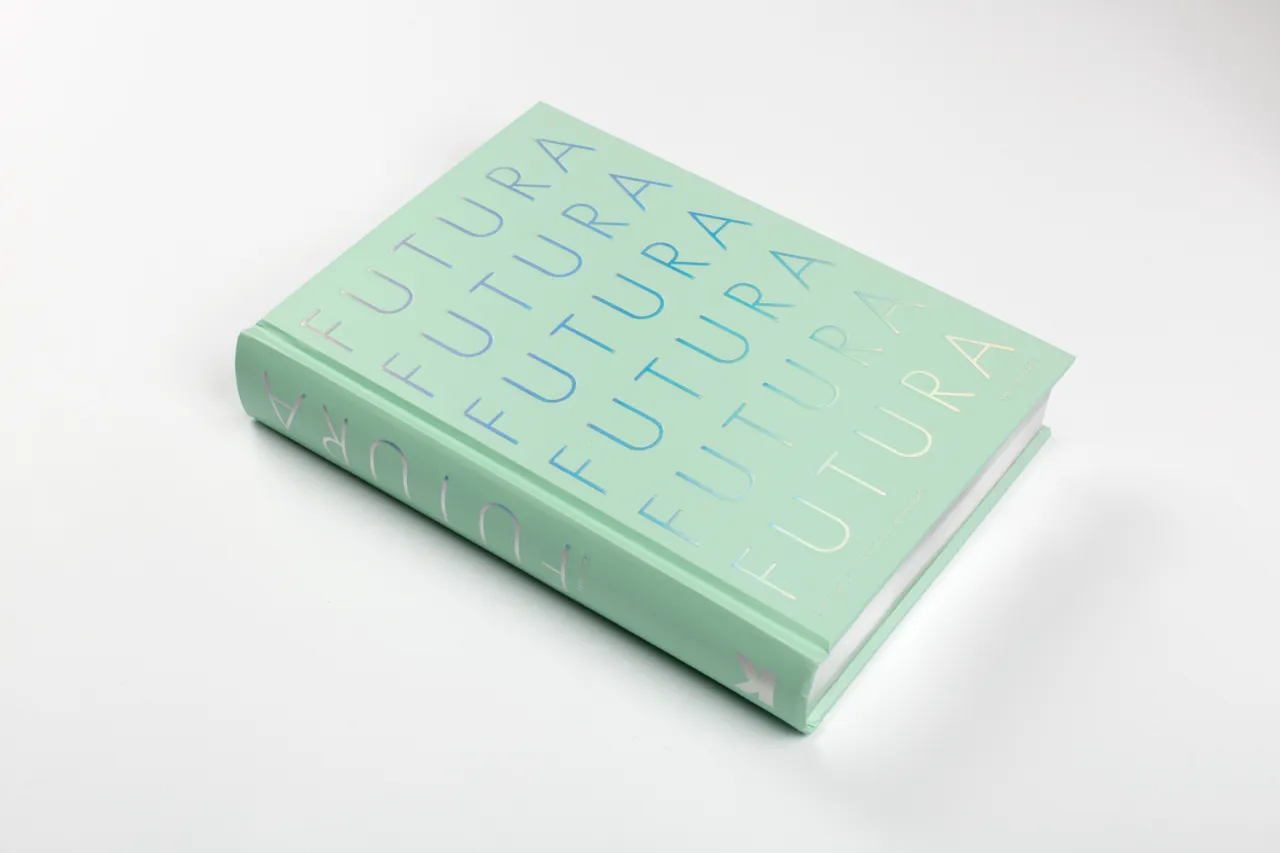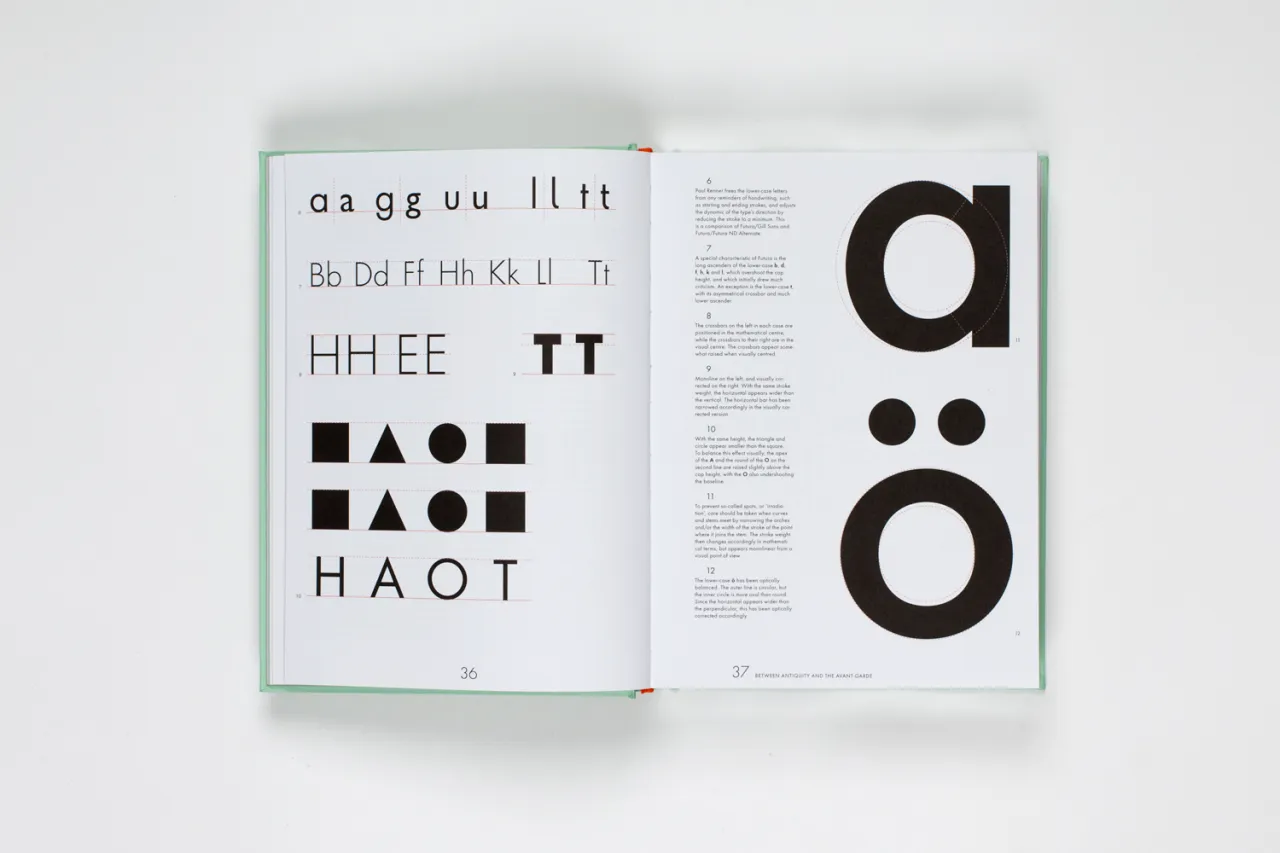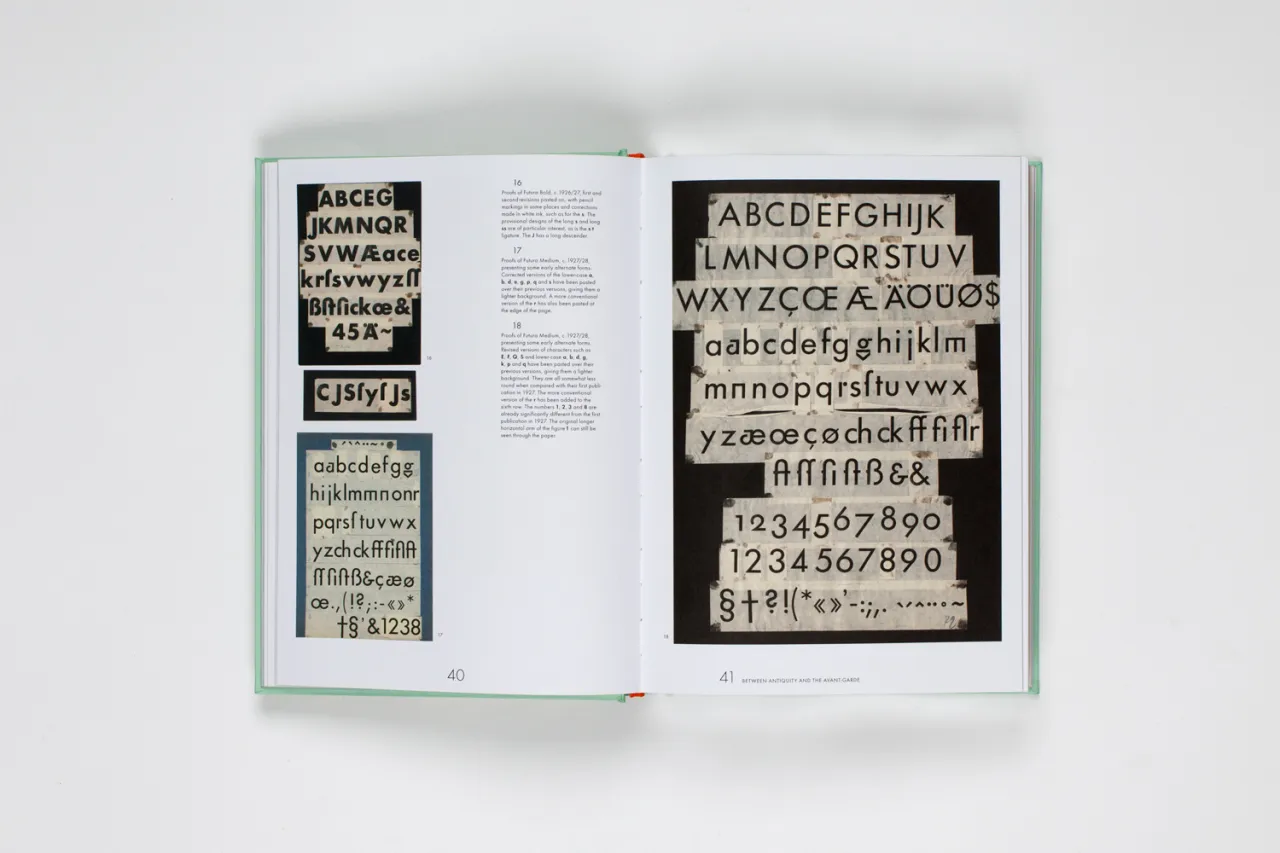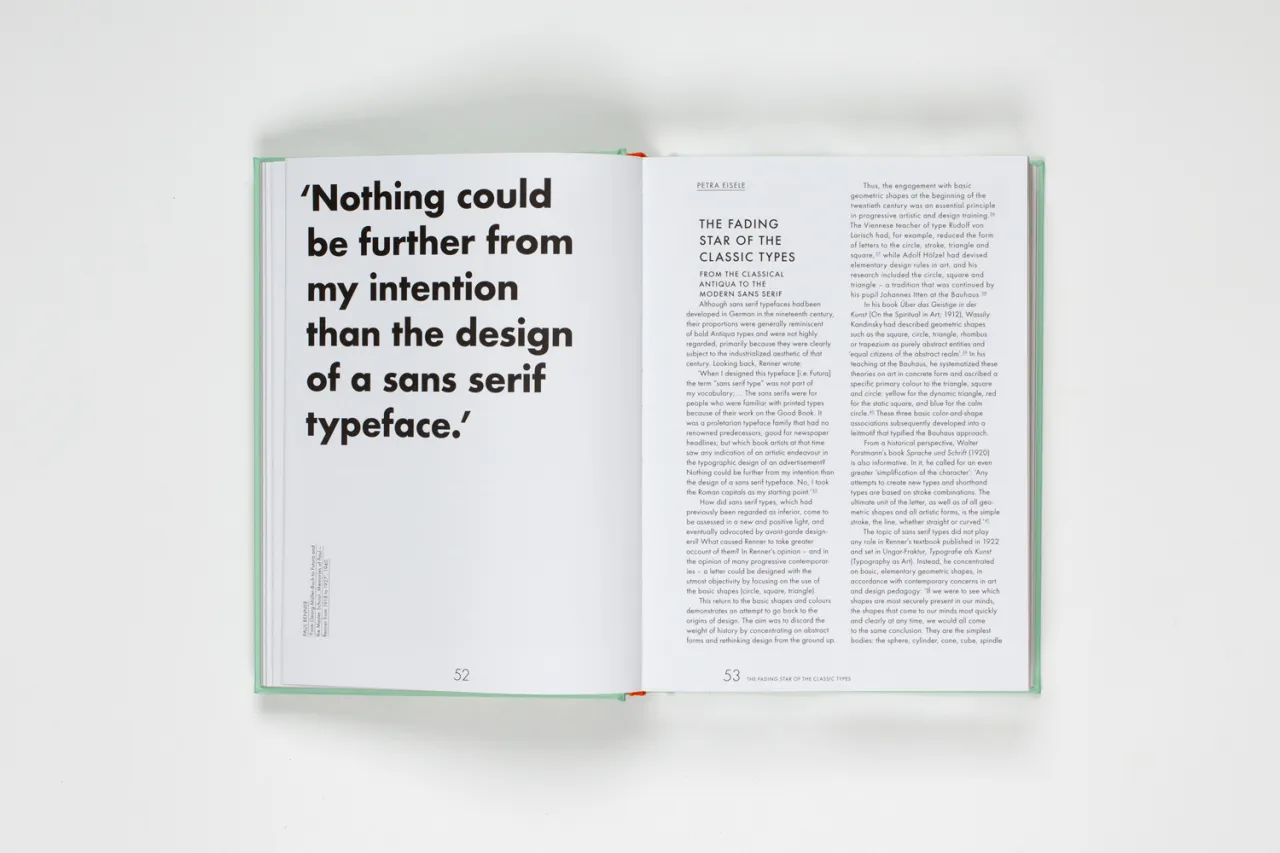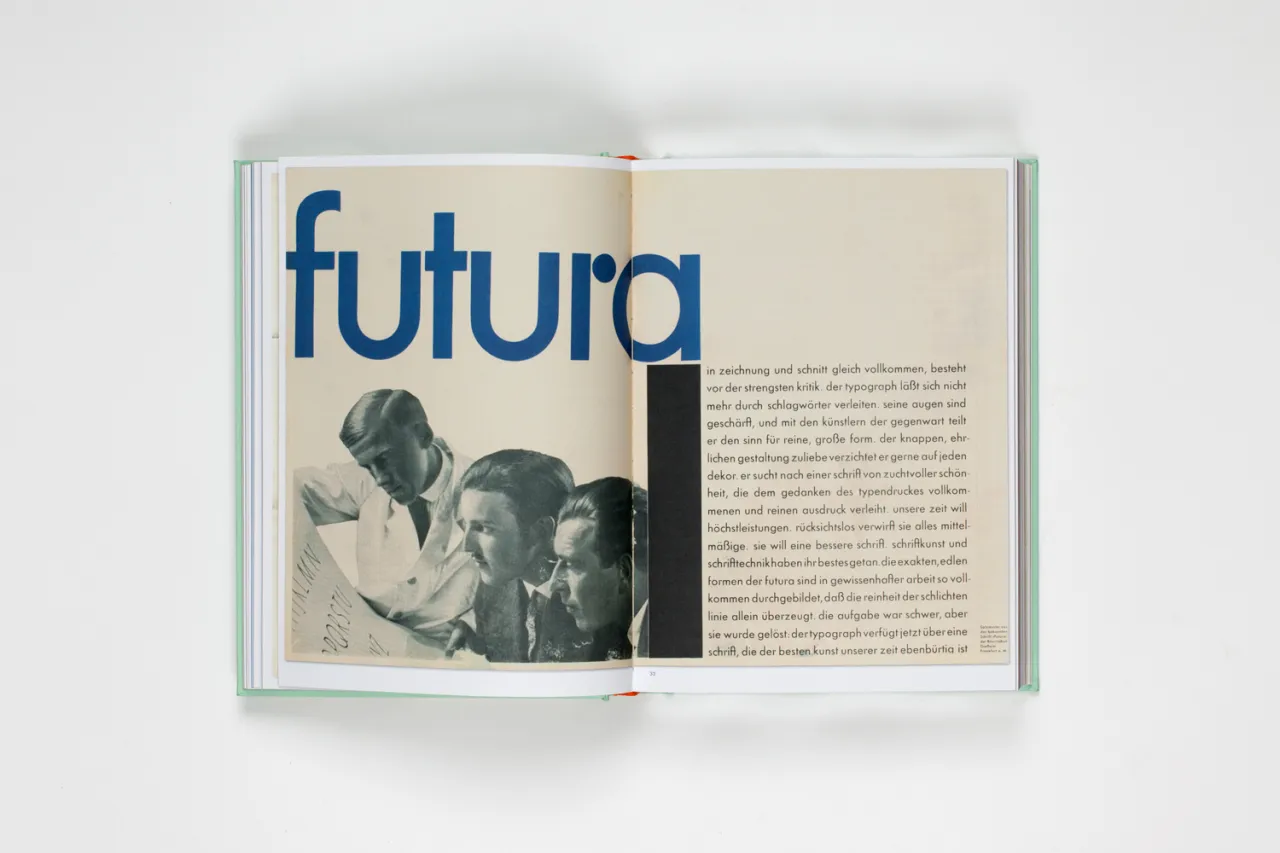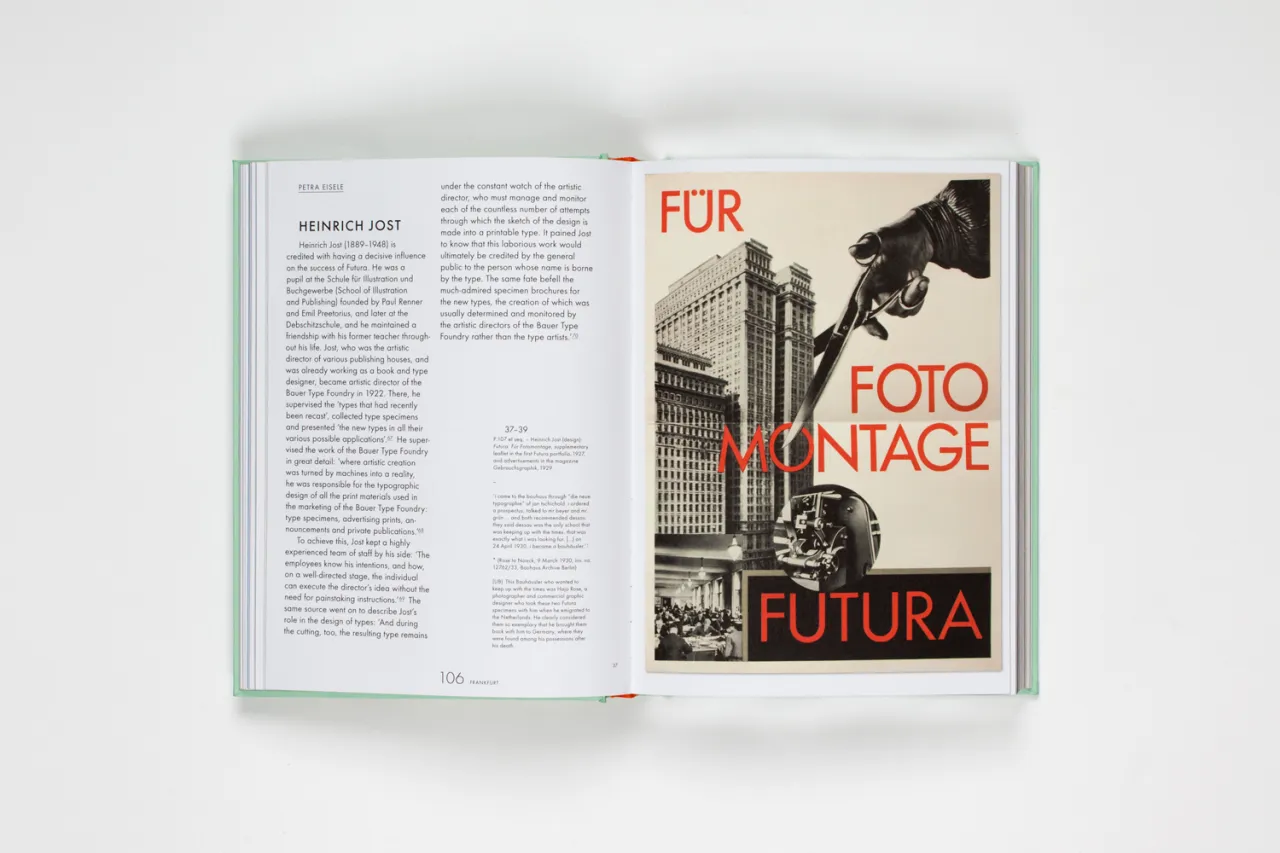
Futura: The Typeface is a stunning showcase of one of the most popular typefaces
Celebrating its 90th anniversary this year, the life and times of Futura is a fascinating one. Charting its Bauhaus origins to its use as the first font on the moon in 1969, Futura: The Typeface is a new book that tells the story of how the typeface went from representing radicalism in design to dependability.
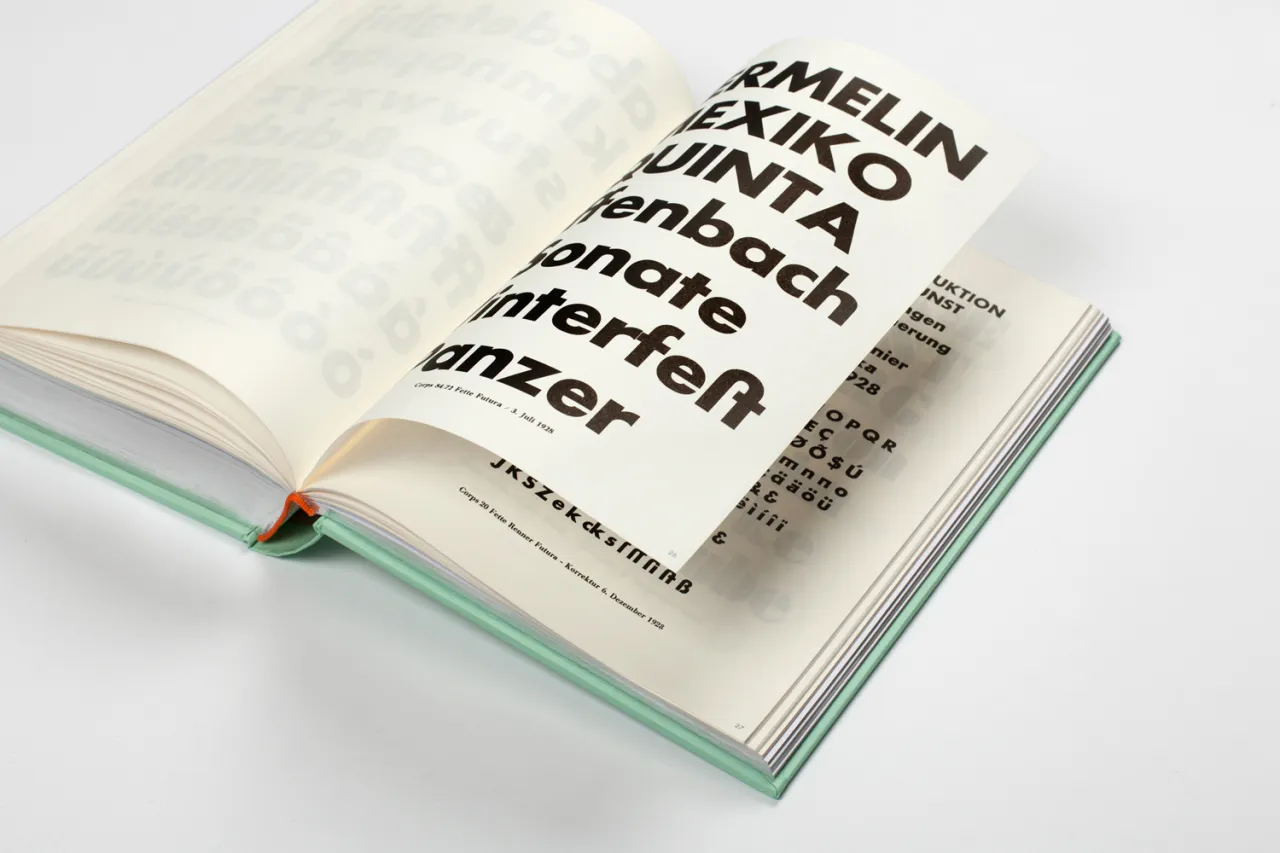
It celebrates and rediscovers this timeless font through archive illustrations and informative essays, revealing fascinating facts like... did you know Futura was Stanley Kubrick's favourite typeface? And that it was used on the film poster for 2001: A Space Odyssey? Or even that Vanity Fair used Futura as an experiment for five issues in 1929, defining their progressive design style, and pin-pointing Futura as "a face representing the New Typography of the European avant-garde"?
Expect insight and observations from renowned design writers such as Steven Heller, Erik Spiekermann and Christopher Burke. Edited by Petra Eisele, Professor of Design History and Design Theory at the University of Mainz; Dr Annette Ludwig, Director of the Gutenberg Museum and Isabel Naegele, Professor of Typography at the University of Mainz.